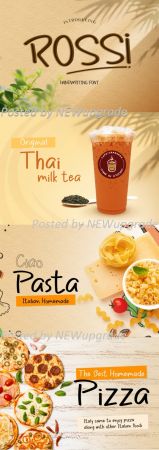
Rossi is a cute and casual handwritten font with an incredibly friendly feel. Whether you’re looking for fonts for Instagram or calligraphy scripts for DIY projects, Rossi will turn any creative idea into a true piece of art!